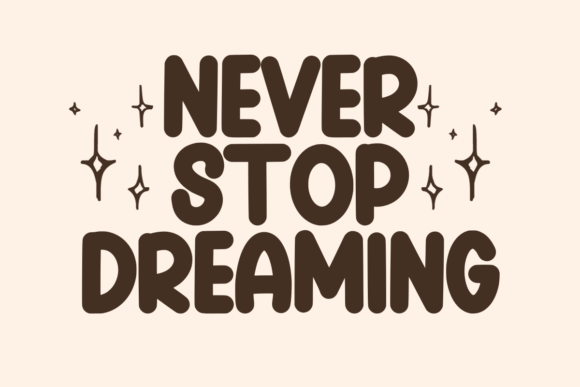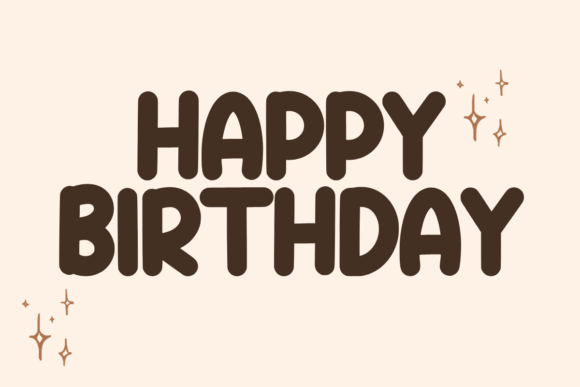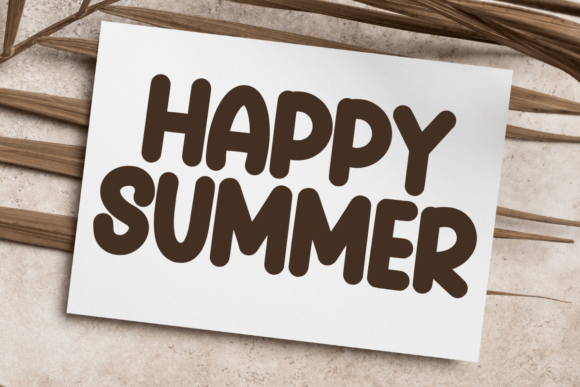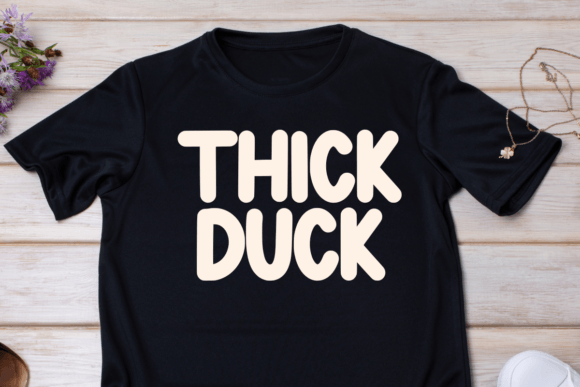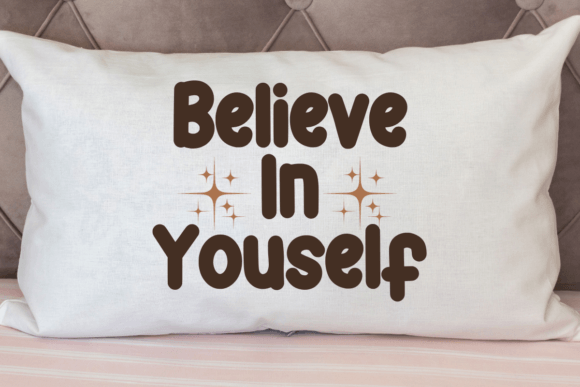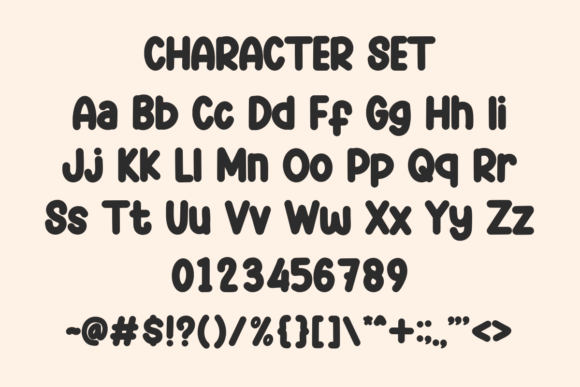
Hello Choco Font: Elevate Your Designs with Modern Elegance
In the world of typography, fonts play a crucial role in conveying messages, expressing emotions, and creating visual identities. For designers, crafters, and creative enthusiasts, finding the perfect font can be a daunting task. However, if you’re looking for a modern and elegant font that can elevate your designs, look no further than Hello Choco Font.
What is Hello Choco Font?
Hello Choco Font is a modern font designed with bold and minimalist shapes, touched with a contemporary and elegant style. This font is perfect for various creative needs, including printing, books, titles, headlines, photography, decoration, branding, logos, and more. Its versatility and aesthetic appeal make it an excellent choice for designers and crafters seeking to add a touch of sophistication to their work.
Key Features of Hello Choco Font
- Modern Style: Hello Choco Font boasts a modern design that is both fresh and trendy, making it ideal for projects that require a contemporary look and feel.
- Bold and Minimalist Shapes: The font’s bold and minimalist shapes provide a clean and elegant appearance, allowing your designs to stand out without being too overwhelming.
- Elegant Touch: The elegant style of Hello Choco Font adds a touch of sophistication, making it perfect for high-end branding, luxury packaging, and premium publications.
- Versatility: This font is highly versatile and can be used for a wide range of applications, from digital designs to print materials.
Use Cases for Hello Choco Font
Hello Choco Font is an excellent choice for various design projects, including:
- Branding and Logos: Create a lasting impression with a bold and elegant logo that reflects your brand’s personality.
- Print Materials: Elevate your print designs, such as brochures, flyers, and posters, with a modern and sophisticated font.
- Digital Designs: Use Hello Choco Font in your digital projects, including website headers, social media graphics, and email marketing campaigns.
- Photography and Decoration: Add a touch of elegance to your photography and decoration projects, such as album covers, wall art, and home decor.
- Books and Publications: Use Hello Choco Font as a title font or header font in your books, magazines, and other publications.
Benefits of Using Hello Choco Font
By incorporating Hello Choco Font into your designs, you can:
- Enhance Visual Appeal: Add a touch of modern elegance to your designs and make them more visually appealing.
- Increase Legibility: The bold and clear shapes of Hello Choco Font ensure that your text is easy to read and understand.
- Establish Brand Identity: Use Hello Choco Font consistently across your designs to create a strong brand identity.
- Save Time: With its versatility and ease of use, Hello Choco Font can save you time and effort in finding the perfect font for your projects.
Hello Choco Font is a modern and elegant font that can elevate your designs and take them to the next level. Its bold and minimalist shapes, combined with its elegant style, make it perfect for various creative needs. Whether you’re a designer, crafter, or creative enthusiast, Hello Choco Font is an excellent choice for adding a touch of sophistication to your work. So why wait? Explore the possibilities of Hello Choco Font today and discover how it can enhance your designs.